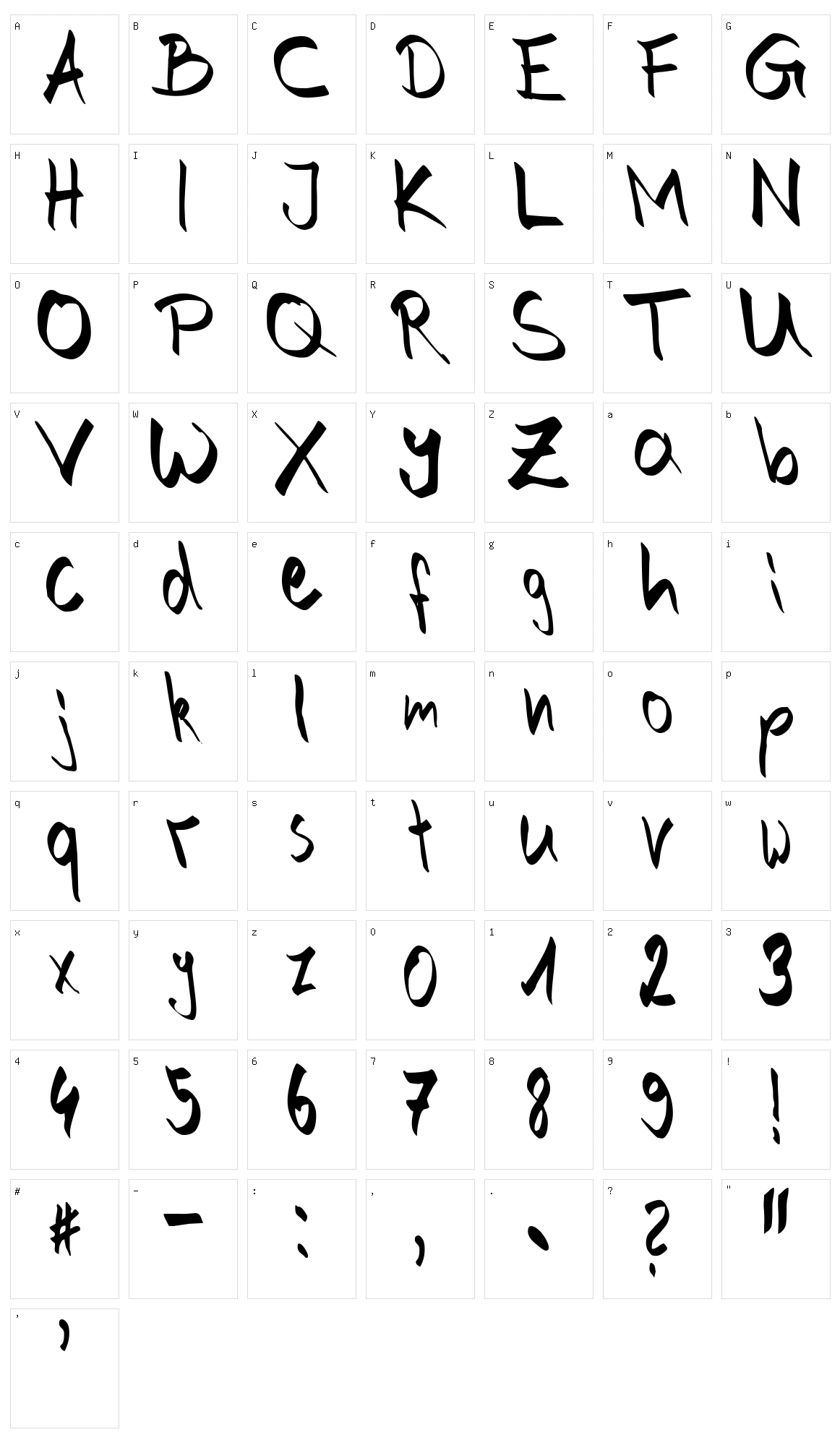
The free font Hand of Joe is carefully designed by Johannes Westphal, showcasing a thoughtful balance of creativity and usability and falls under the Script font style. When you download the ZIP file, it contains only 18.03 KB of font files, making it lightweight and quick to download. Please review the license details below to understand permitted usage and distribution rights. If license information is not available, we recommend using this font for personal projects only or contacting the author directly for commercial usage permissions.